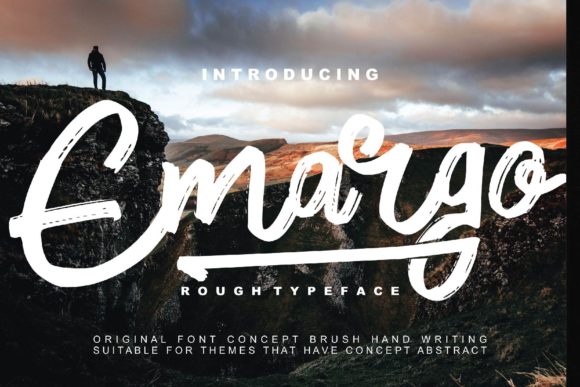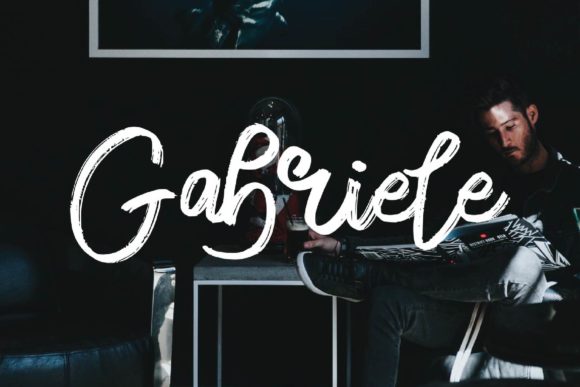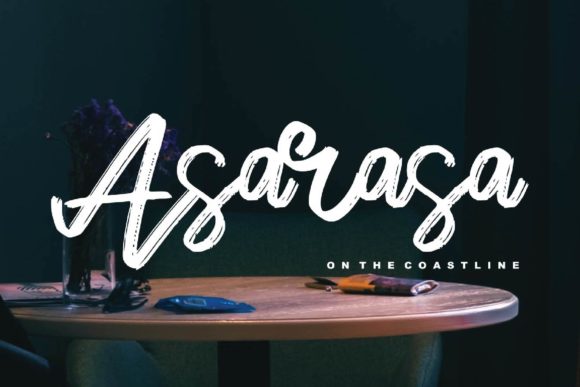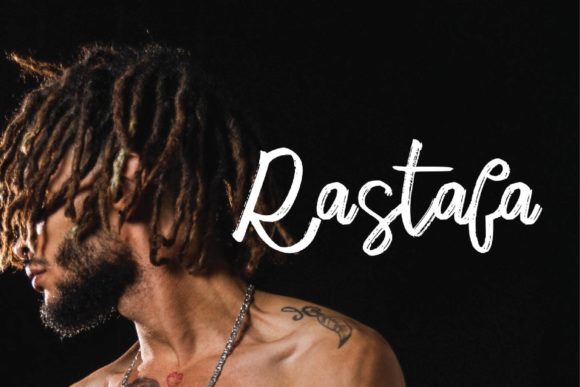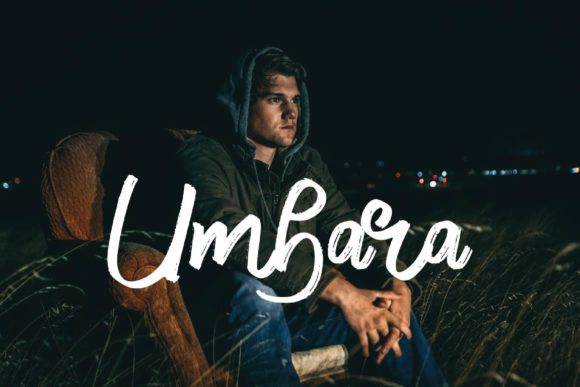
HomeScript FontsEmargo Font Script Fonts Emargo Font FacebookXPinterestWhatsApp Emargo Font Poster 2 Emargo Font Poster 3 Emargo Font Poster 4 Emargo Font Poster 5 About Emargo Font Emargo is the perfect font for adding a casual feel to any design. Get inspired by its modern elegance. DOWNLOAD ON CREATIVE FABRICAThis font is sold and delivered by Creative Fabrica. Font Canyon may earn a commission if you buy through this link. People also explored Farmhouse Font Summer Vibes Font Romanhuff Semi-Bold Font Boho Bear Font Honey Sky Font Thamarind Font Love Your Story Font Papillon Script Shabila Font 294 0 TagsEmargo Font Previous articleQuenyland FontNext articleDenmark Font LEAVE A REPLY Cancel reply Comment: Please enter your comment! Name:* Please enter your name here Email:* You have entered an incorrect email address! Please enter your email address here Website: Save my name, email, and website in this browser for the next time I comment. Personal Use Free Mama Personal Use Free Read more about this font Fontmageddon Personal Use Free Read more about this font Austins Personal Use Free Read more about this font Hair Thinned Personal Use Free Read more about this font BLOG Elegant Wedding Invitation Fonts – Handwritten & Script Fonts Elegant Wedding Invitation Fonts Your wedding day is one of the most important moments of your life, and every detail matters—including your invitation design. Our... Top 7 Google Fonts Alternatives for Faster and Privacy-Friendly Web Design (2025) Best Fonts for YouTube Videos: Make Your Thumbnails Stand Out Fonts That Capture the Spirit of New York City